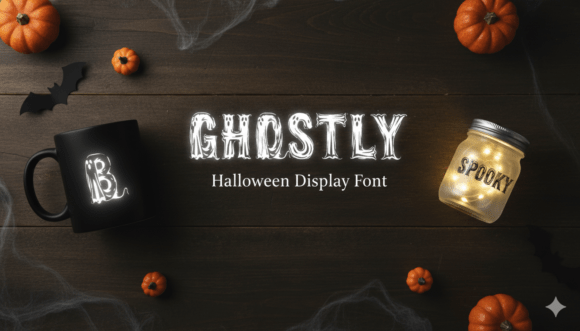
Introducing Ghostly Font: The Perfect Addition to Your Spooky Season Creations
Are you looking for a font that will add a touch of eerie delight to your Halloween-themed designs? Look no further than Ghostly Font, a hauntingly charming display font that’s perfect for all your spooky season creations. With its playful ghost-like appearance, this font is sure to bring a unique and fun vibe to your designs.
What is Ghostly Font?
Ghostly Font is a display font designed specifically for use in spooky season creations. Each letter is carefully crafted to have a playful ghost-like appearance, giving your designs a fun and eerie feel. The font is ideal for use in a variety of applications, including Halloween invitations, party decorations, t-shirts, posters, social media graphics, and more.
Key Features of Ghostly Font
- Playful ghost-like appearance: Each letter in Ghostly Font is designed to have a unique and playful ghost-like appearance, adding a touch of whimsy to your designs.
- Hauntingly charming: The font has a hauntingly charming quality that’s perfect for spooky season creations.
- Display font: Ghostly Font is a display font, making it perfect for use in headlines, titles, and other prominent text elements.
- Easy to read: Despite its playful appearance, Ghostly Font is easy to read, making it perfect for use in a variety of applications.
Uses for Ghostly Font
Ghostly Font is a versatile font that can be used in a variety of applications, including:
- Halloween invitations: Add a touch of spooky charm to your Halloween invitations with Ghostly Font.
- Party decorations: Use Ghostly Font to create spooky party decorations, such as banners, signs, and centerpieces.
- T-shirts and apparel: Create spooky t-shirts and apparel with Ghostly Font.
- Posters and flyers: Use Ghostly Font to create eye-catching posters and flyers for Halloween events.
- Social media graphics: Add a touch of spooky charm to your social media graphics with Ghostly Font.
Tips for Using Ghostly Font
Here are a few tips for using Ghostly Font in your designs:
- Use it sparingly: Ghostly Font is a display font, so it’s best to use it sparingly to add emphasis to your designs.
- Pair it with other fonts: Pair Ghostly Font with other fonts to create a unique and interesting contrast.
- Experiment with colors: Experiment with different colors to find the perfect combination for your design.
Ghostly Font is a hauntingly charming display font that’s perfect for all your spooky season creations. With its playful ghost-like appearance and easy-to-read design, it’s ideal for use in a variety of applications, from Halloween invitations to social media graphics. So why wait? Download Ghostly Font today and add a touch of eerie delight to your designs!